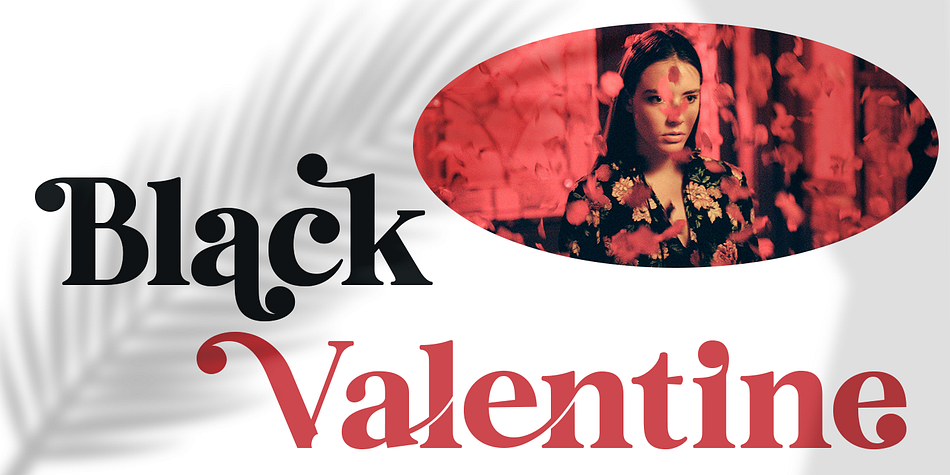
Narcost
Narcost is a display serif font family. This typeface has three styles and was published by Skypia.
Narcost is a modern display serif font packaged in a modern and classy style, complete with access to your OpenType features to access a large selection of alternates letters and ligatures, the choice of letters you like from variations of uppercase and lowercase letters to get a display luxurious and elegant.
Unique, playful and versatile serif family with 35 ligatures and 61alternates to beautify the design you like. This font is perfect for branding projects, Logo design, Clothing Branding, packaging, magazine headings, advertising, T-shirts, postcards and much more.
-Alternates and Ligatures